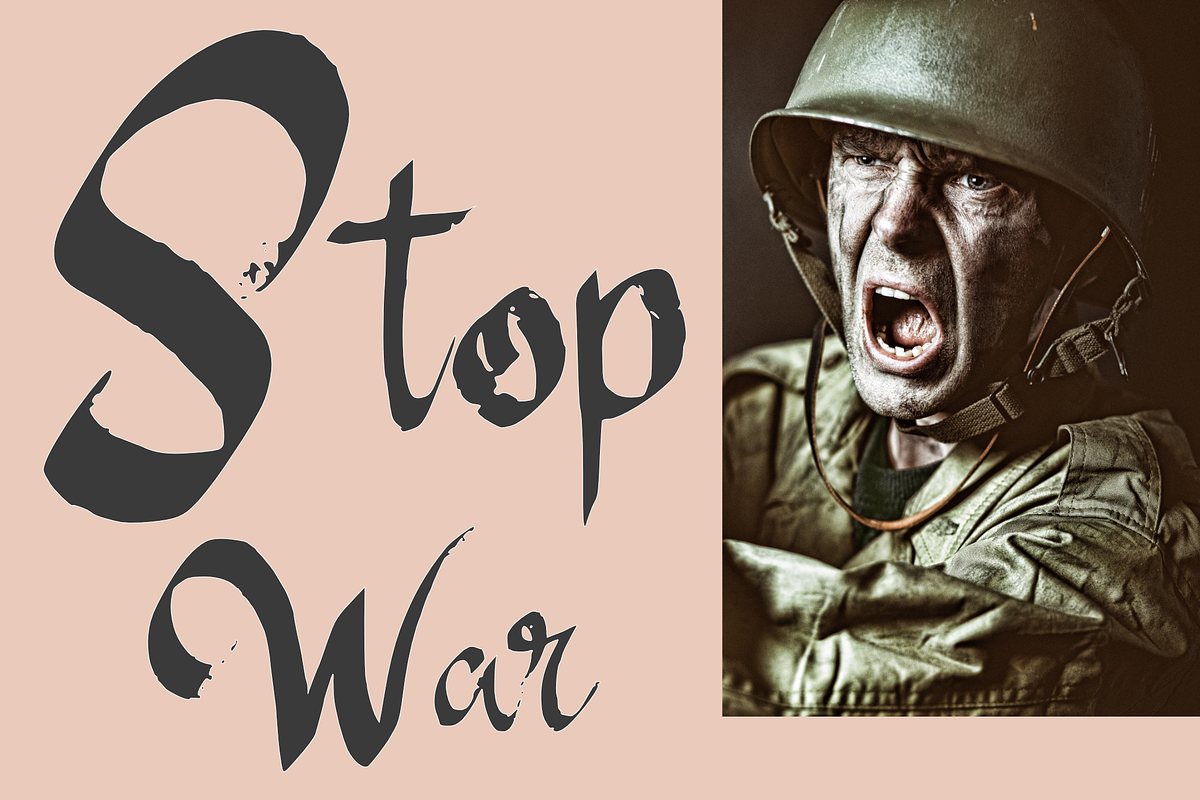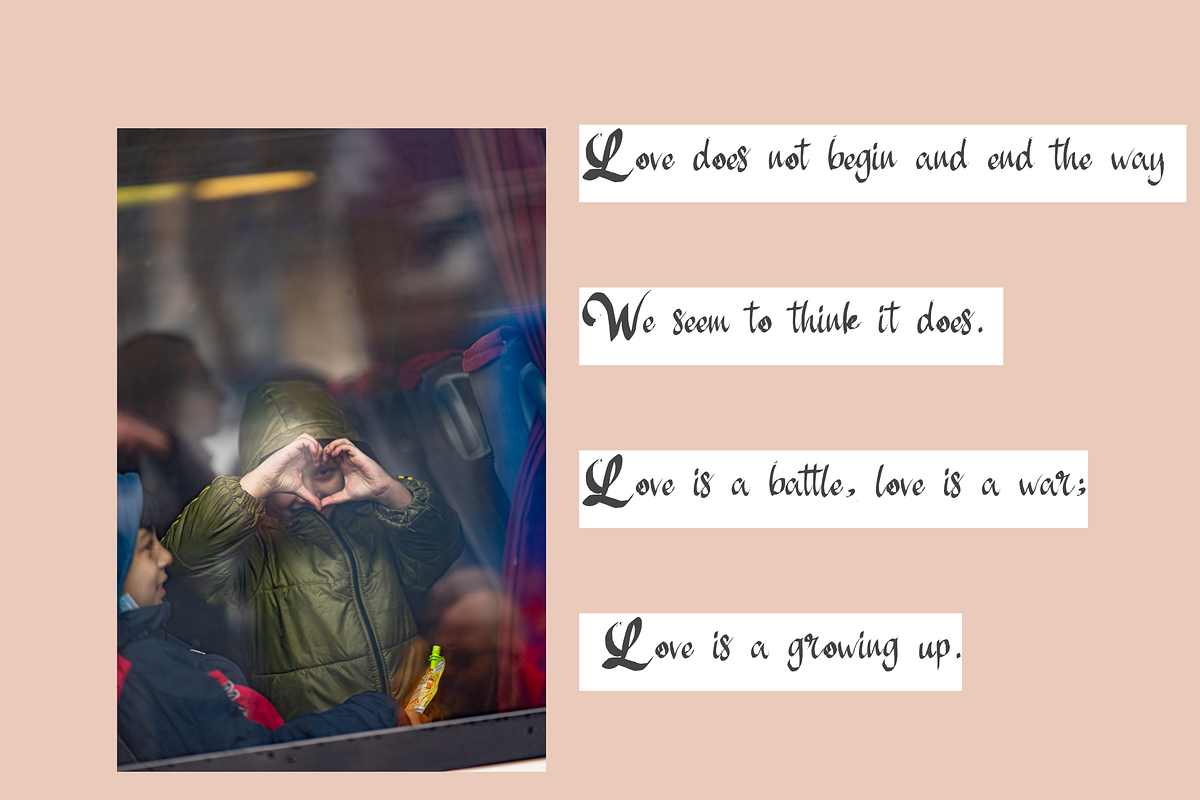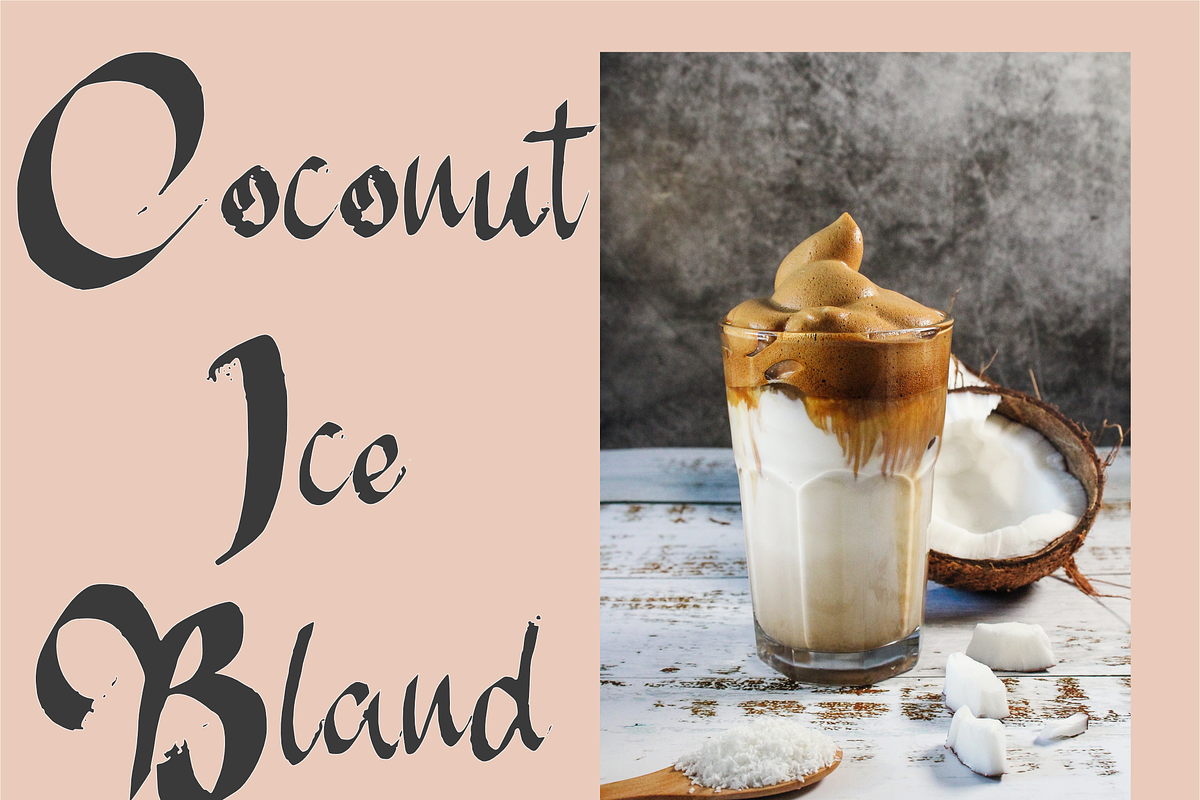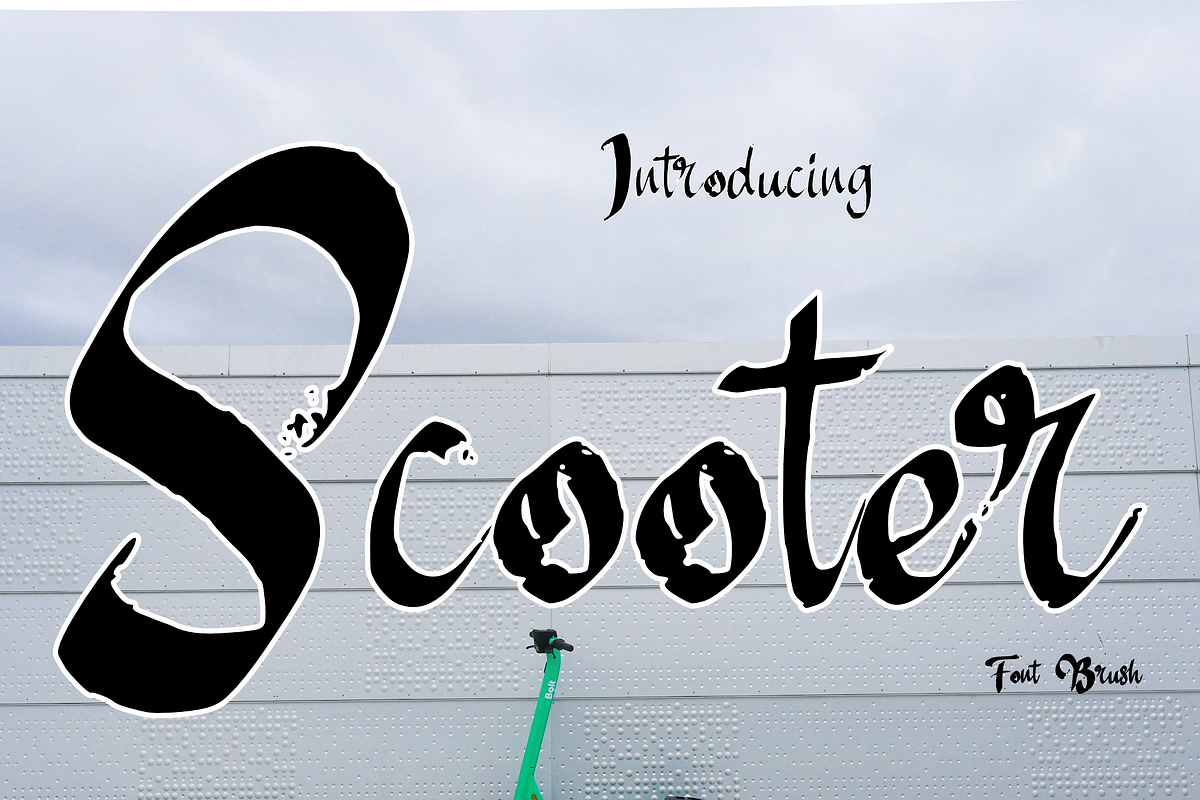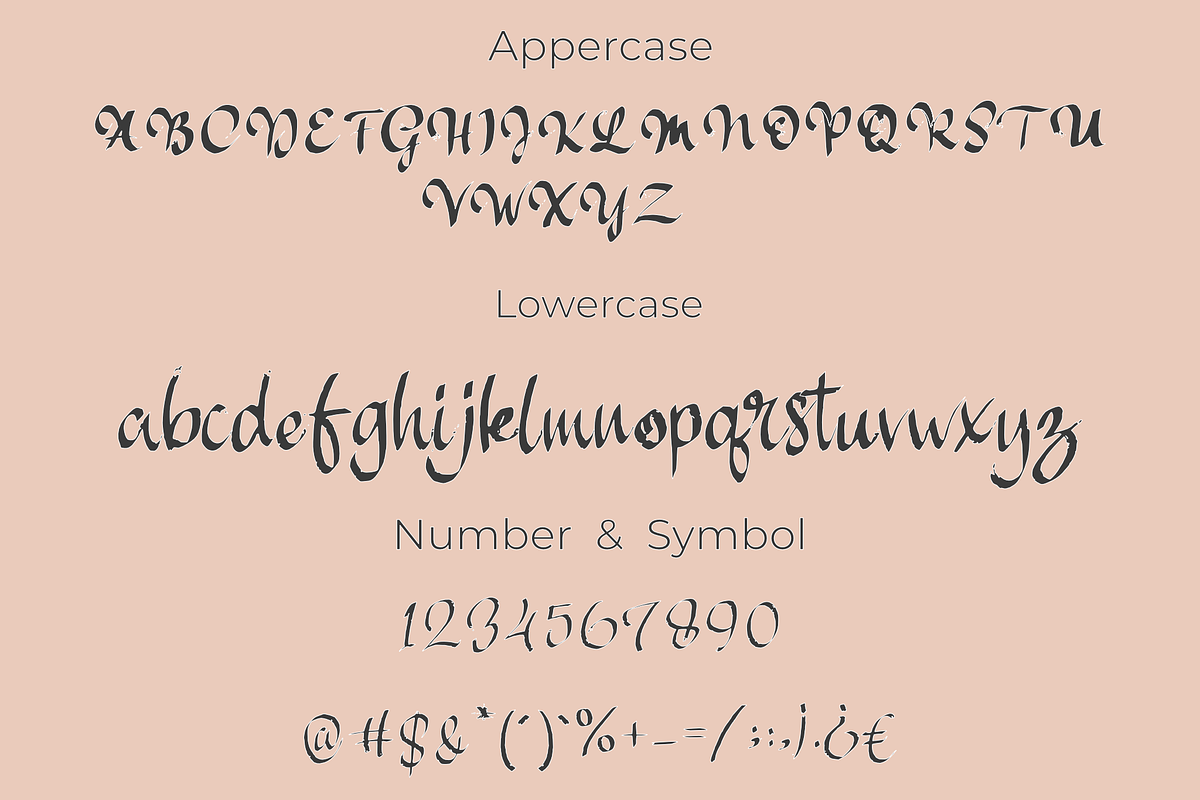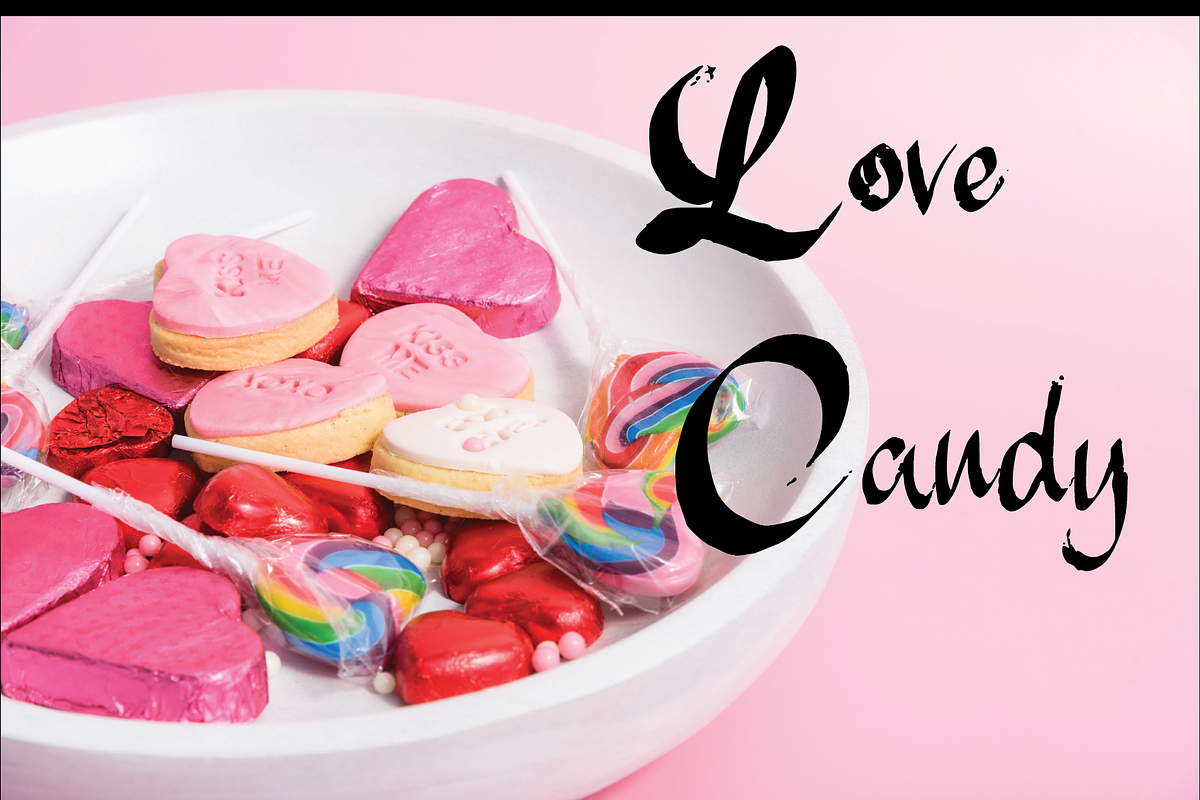
Scooter
Scooter Script is a modern calligraphy design, including Regular. This font is casual and beautiful with swash. Can be used for various purposes. such as logos, product packaging, wedding invitations, branding, headlines, signage, labels, signatures, book covers, posters, quotes, and more.